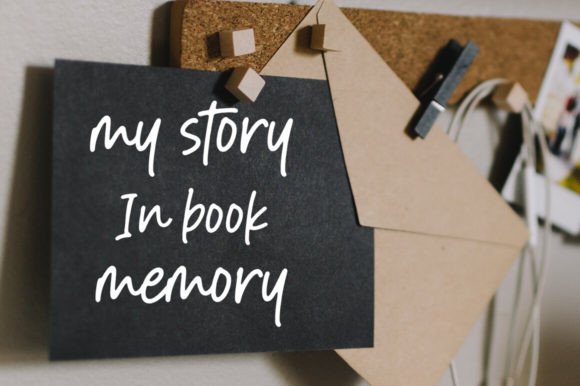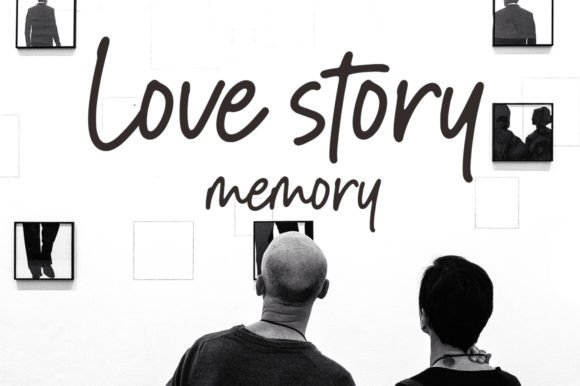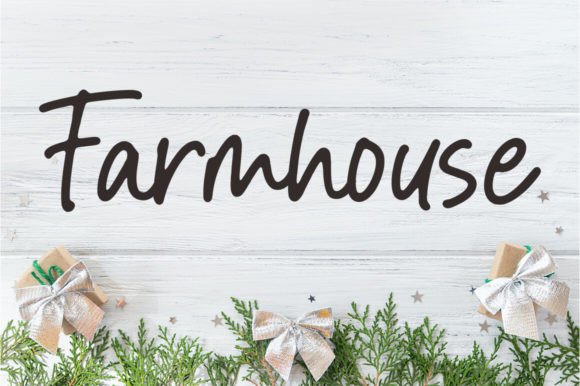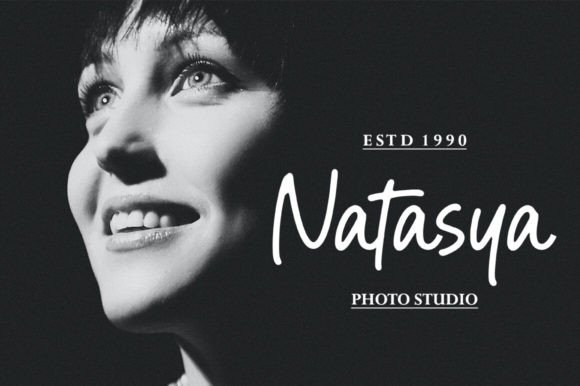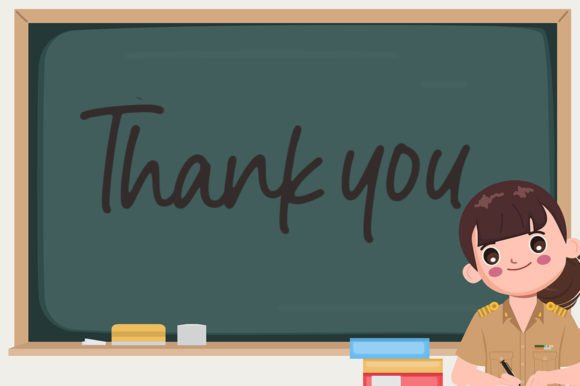
Elevate Your Designs with Handmade Fonts: The Perfect Touch for Creative Projects
In the world of design, the right font can make all the difference. It can add a touch of elegance, a dash of whimsy, or a pinch of personality to your project. For those seeking a more personal and human touch, handmade fonts have become increasingly popular. These unique, handcrafted letters offer a distinctive charm that can elevate a wide range of creative projects, from wall displays and wedding invitations to social media logos and product packaging.
The Allure of Handmade Fonts
Handmade fonts, as the name suggests, are meticulously crafted by hand, often using traditional techniques such as calligraphy, lettering, and hand-painting. This labor of love results in a font that exudes warmth, character, and a sense of authenticity. Unlike generic, computer-generated fonts, handmade fonts possess a certain je ne sais quoi that can make your design stand out from the crowd.
Versatility of Handmade Fonts
One of the most significant advantages of handmade fonts is their versatility. They can be used across a variety of mediums and projects, including:
- Wall Displays: Add a touch of personality to your wall art with handmade fonts that can be used for quotes, lyrics, or phrases.
- Wedding Invitations: Make your wedding invitations truly special with handmade fonts that convey love, joy, and celebration.
- Social Media Post Logos: Elevate your social media presence with handmade fonts that reflect your brand’s personality and style.
- Advertisements: Grab attention with handmade fonts that add a touch of elegance and sophistication to your ads.
- Product Packaging: Make your products stand out on store shelves with handmade fonts that add a personal touch to your packaging.
- Product Designs: Incorporate handmade fonts into your product designs to create unique and eye-catching products.
- Labels: Add a touch of whimsy to your labels with handmade fonts that can be used for product labels, address labels, or gift labels.
- Photography: Use handmade fonts as watermarks or overlays to add a touch of personality to your photos.
- Invitations: Create custom invitations for parties, events, or celebrations with handmade fonts that reflect the occasion’s tone and style.
- Stationery: Elevate your stationery with handmade fonts that add a touch of elegance and sophistication to your letters, cards, and journals.
Why Designers and Crafters Love Handmade Fonts
Designers and crafters have long been drawn to handmade fonts for several reasons:
- Uniqueness: Handmade fonts offer a level of uniqueness that is hard to find with generic fonts.
- Personality: Handmade fonts possess a certain personality and character that can help bring your design to life.
- Flexibility: Handmade fonts can be used across a wide range of projects and mediums.
- Emotional Connection: Handmade fonts can evoke emotions and create a connection with your audience.
Tips for Using Handmade Fonts
To get the most out of handmade fonts, here are a few tips to keep in mind:
- Choose a font that fits your project’s tone and style: Select a handmade font that complements your project’s theme and aesthetic.
- Experiment with different sizes and colors: Play around with different sizes and colors to find the perfect combination for your project.
- Mix and match with other fonts: Combine handmade fonts with other fonts to create a unique and visually appealing design.
- Pay attention to legibility: Ensure that your handmade font is legible and easy to read, especially for body text.
| Author | Anaya Studio |
Handmade fonts offer a unique and creative way to add a personal touch to your designs. With their versatility, personality, and emotional connection, it’s no wonder designers and crafters are drawn to these special fonts. Whether you’re working on a wall display, wedding invitation, or social media post, handmade fonts are sure to elevate your design and make it stand out from the crowd.
So why settle for generic fonts when you can add a touch of handmade charm to your projects? Explore the world of handmade fonts today and discover the perfect font to bring your design to life.